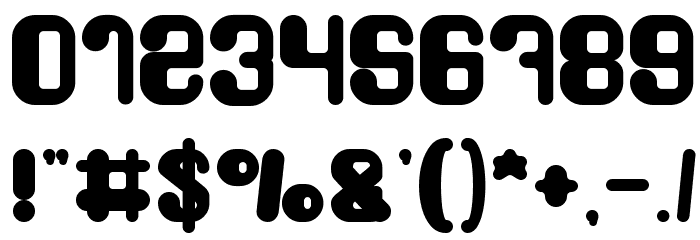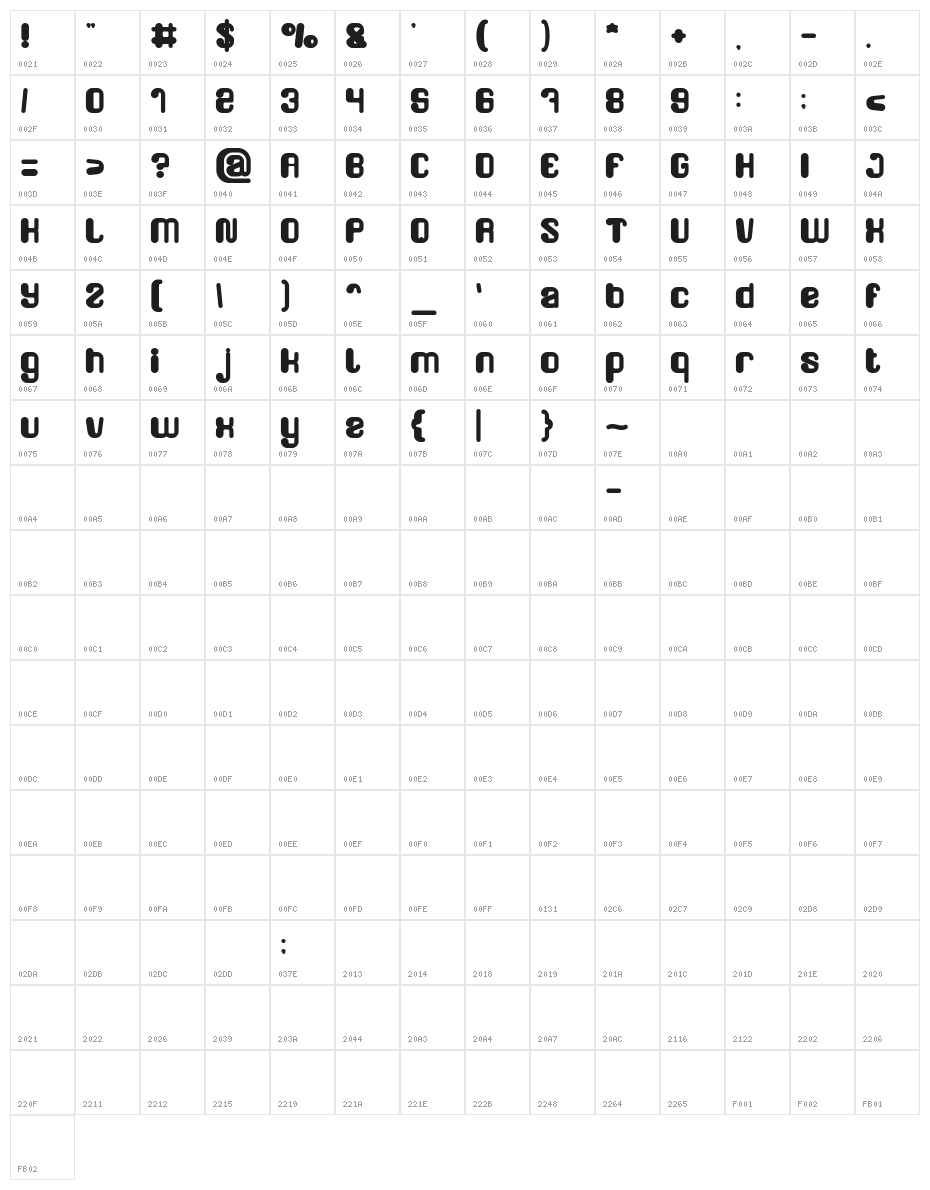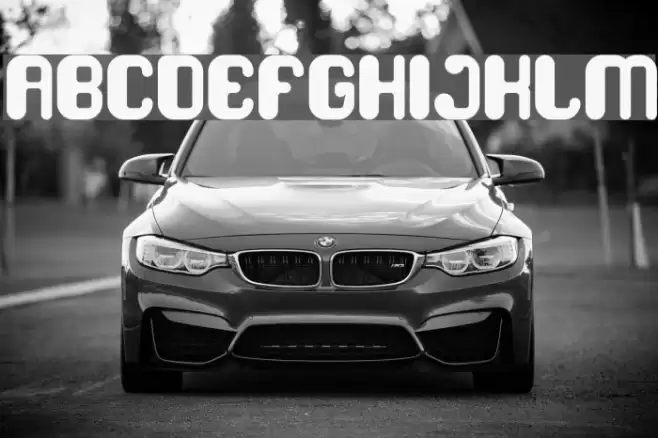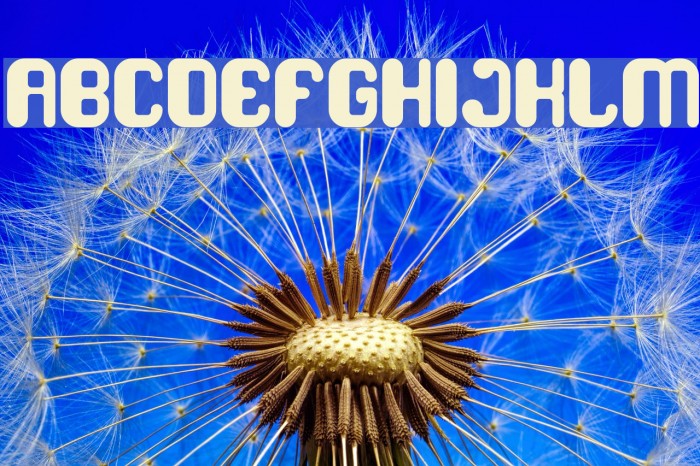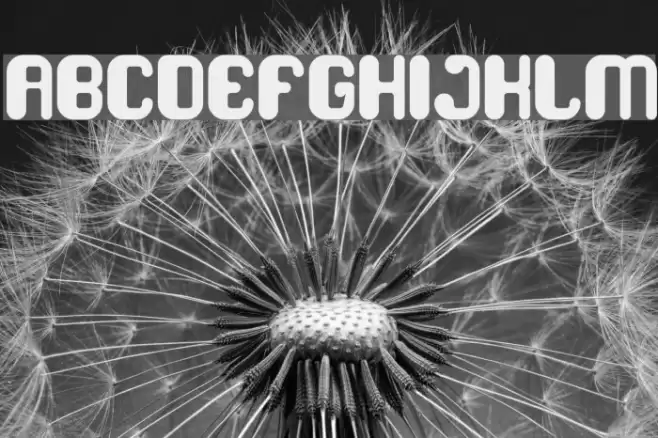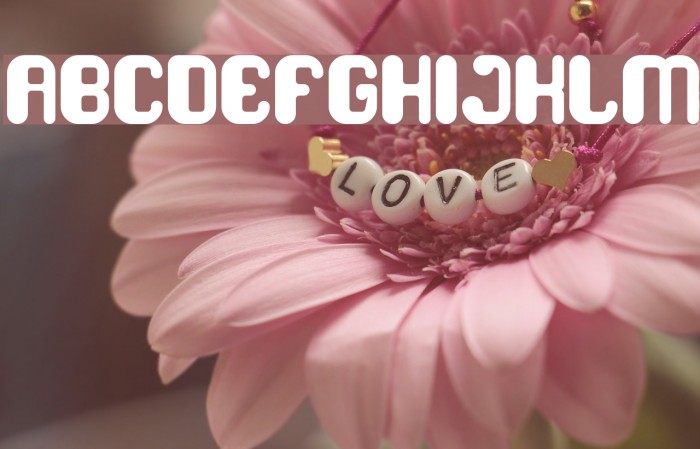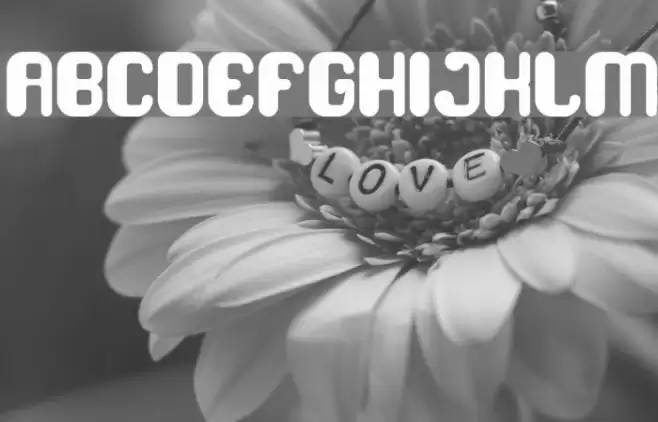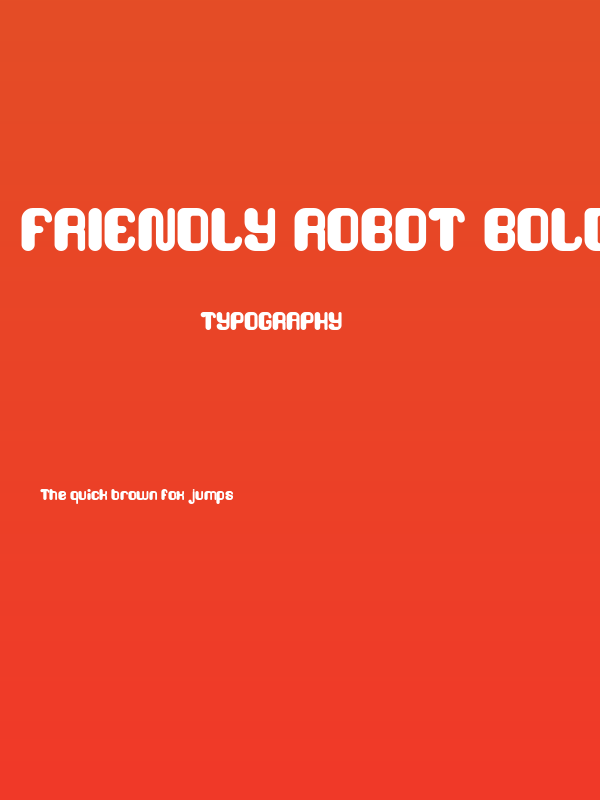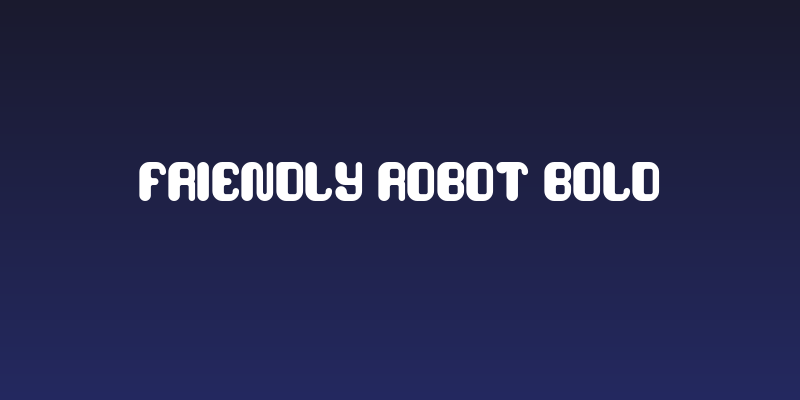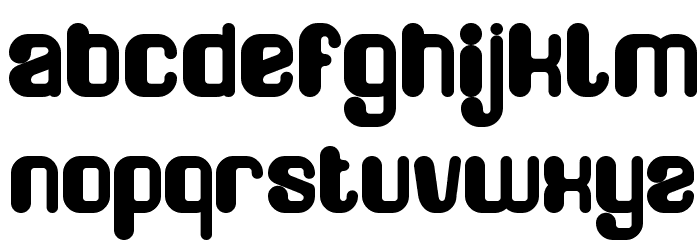
FRIENDLY ROBOT Bold Font
FRIENDLY ROBOT Bold Description
This font features a bold and rounded design with a futuristic and playful aesthetic. The characters are uniformly thick, providing a strong visual presence. The rounded edges and smooth curves give it a friendly and approachable feel, while maintaining a modern and tech-inspired look. The uppercase and lowercase letters are consistent in style, with a slight variation in height and width that adds to its uniqueness. The numerals and special characters follow the same design principles, ensuring a cohesive appearance across all elements. This font is highly legible, making it suitable for various applications where clarity and impact are desired.
| Proposed Projects | Ideal for tech branding, children's products, video game titles, and futuristic-themed designs. |